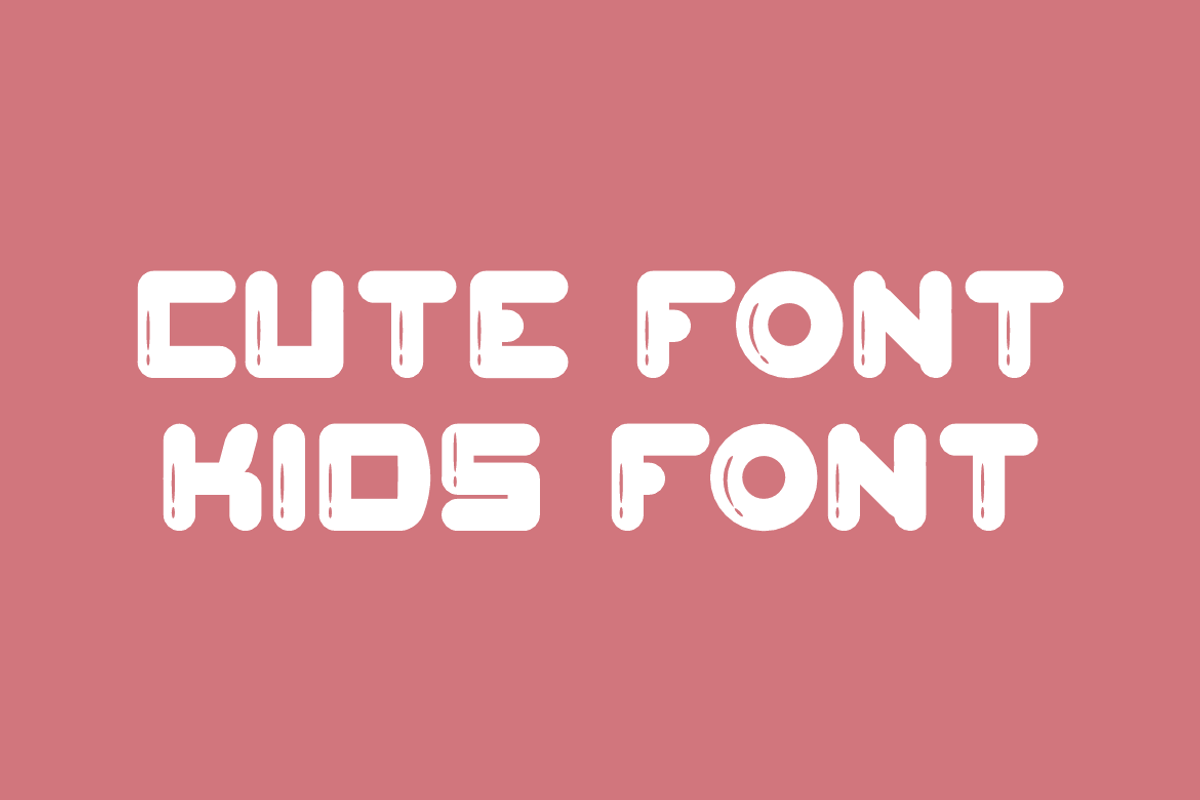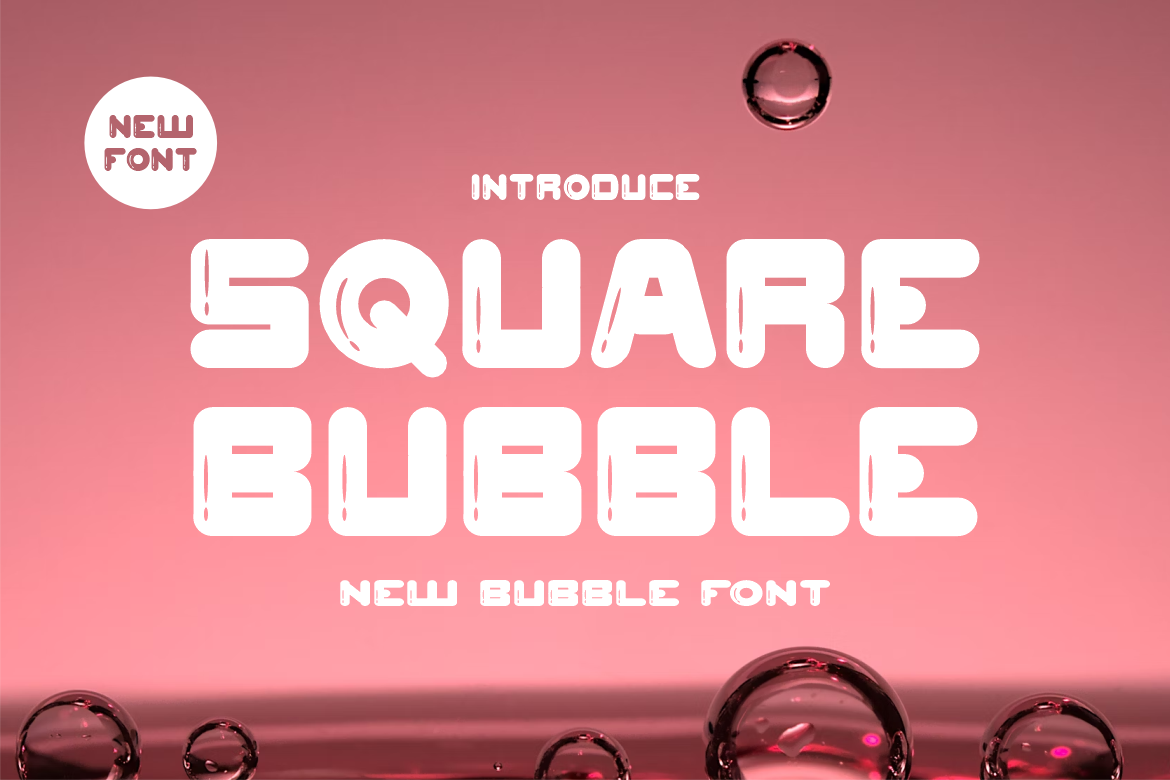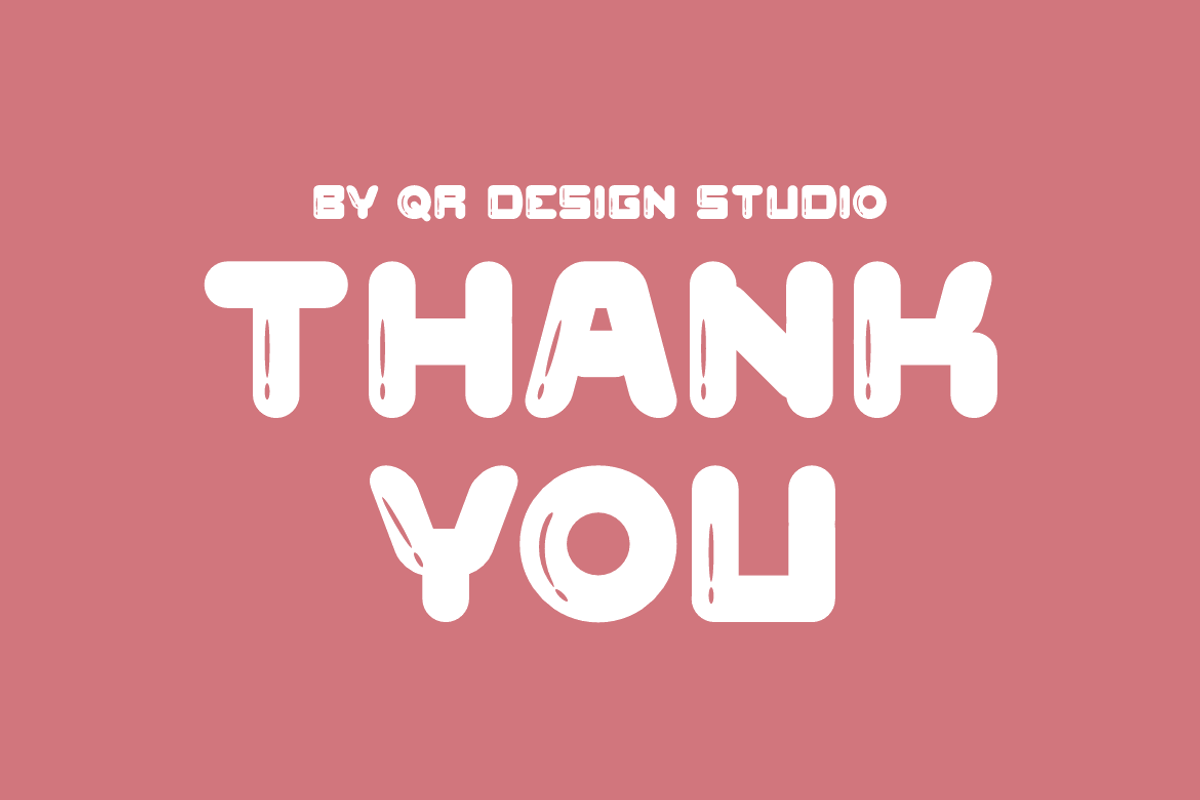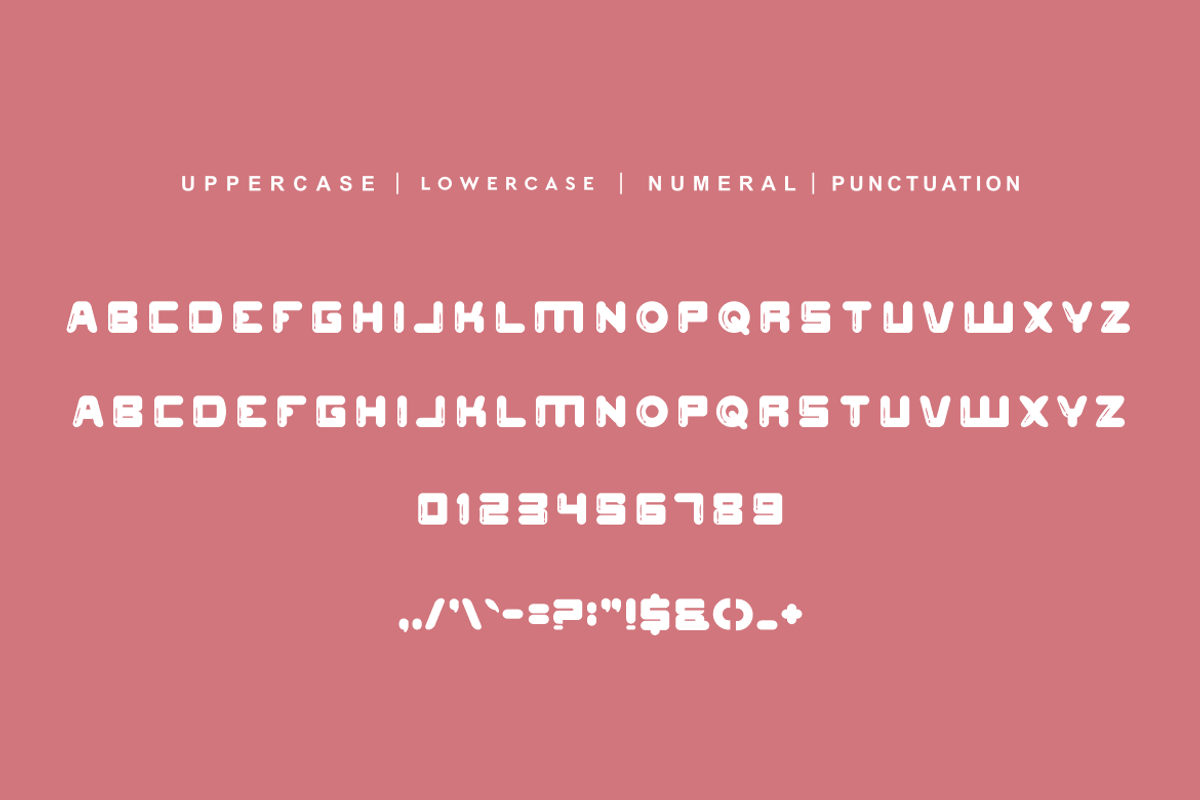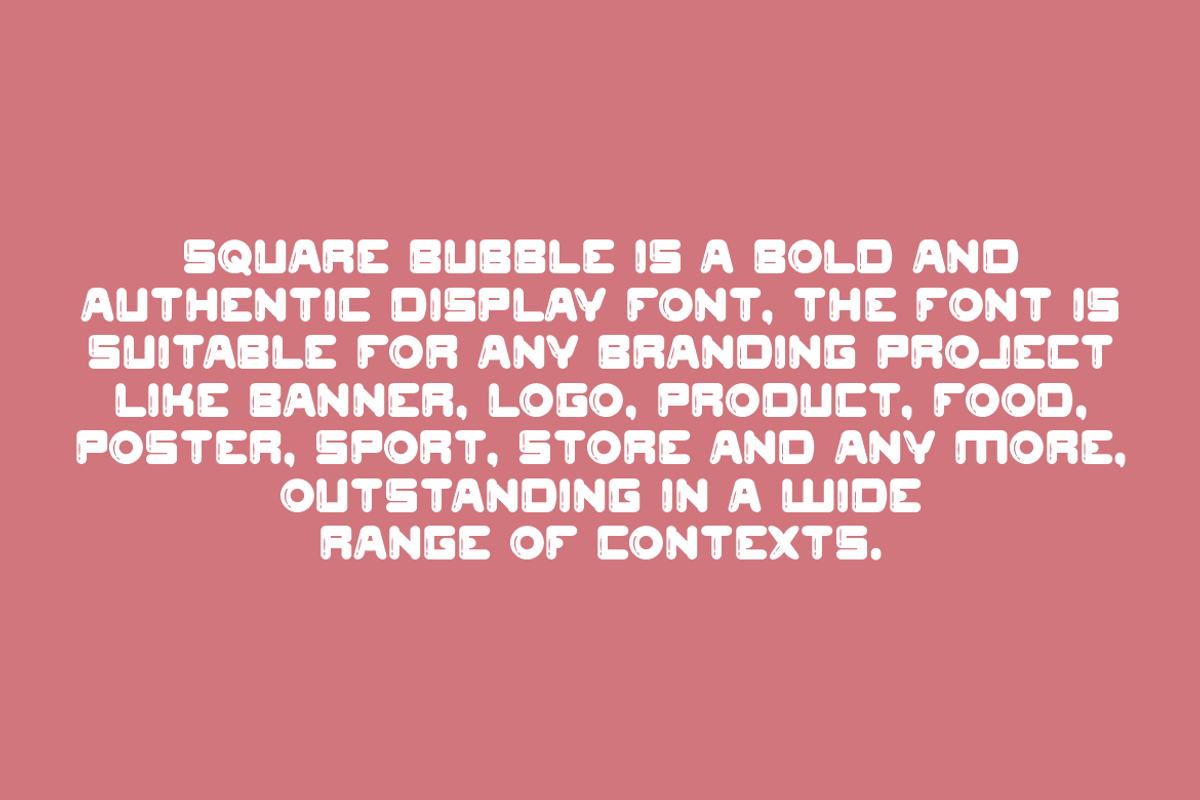
Square Bubble Font
Square Bubble Font is a bold and authentic display font. The font is suitable for any branding project like kids, food, poster, logo, sport, and many more. Outstanding in a wide range of contexts.